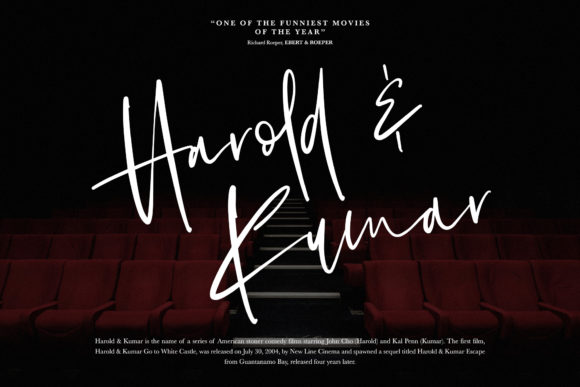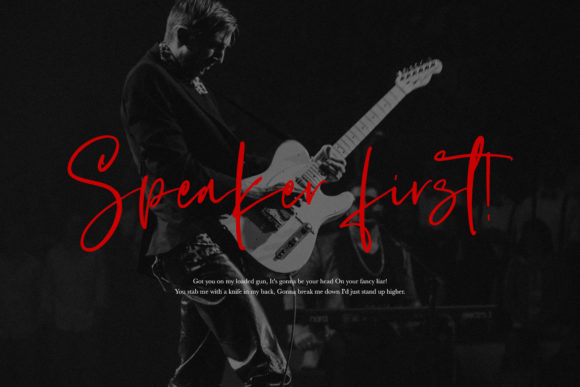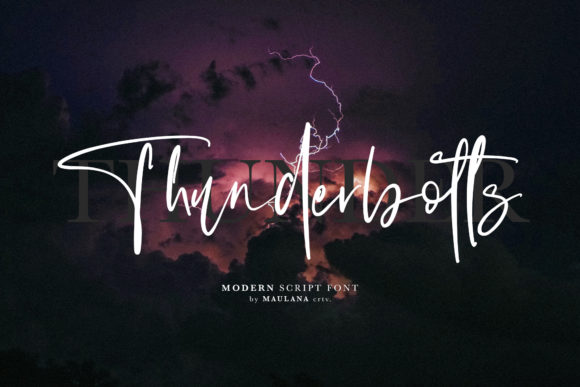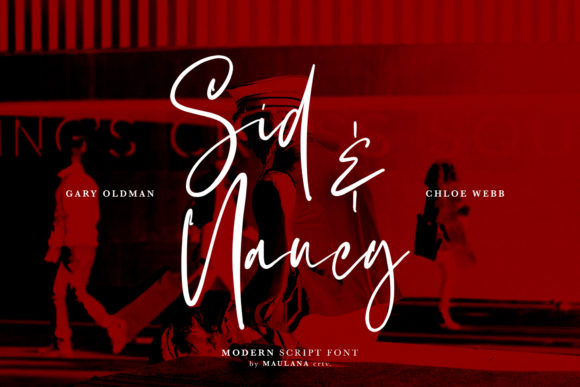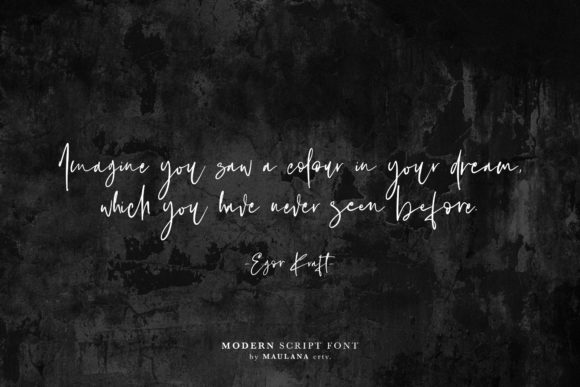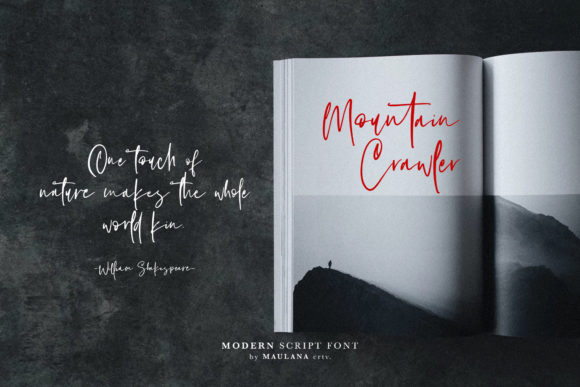
Introduction to Hovercut Font Font
Fonts play a crucial role in design, and the Hovercut Font font is a typeface that brings both character and versatility to any project. Whether you’re working on a branding project, a website, or a print design, the Hovercut Font font offers a unique style that can elevate your work.
Hovercut is a funky and fun script font with unique style.
Fall in love with its playful appearance .
Key Features of Hovercut Font Font
Why Choose Hovercut Font Font?
The Hovercut Font font is more than just a typeface – it’s a design tool that helps you communicate your message with style and clarity. Its unique character set and versatile design make it suitable for a wide range of applications, from elegant invitations to bold headlines.
With its carefully crafted letterforms and balanced proportions, the Hovercut Font font ensures readability and visual appeal across all mediums.
What makes Hovercut Font font special?
The Hovercut Font font stands out with its unique design, exceptional readability, and versatility across various design applications.